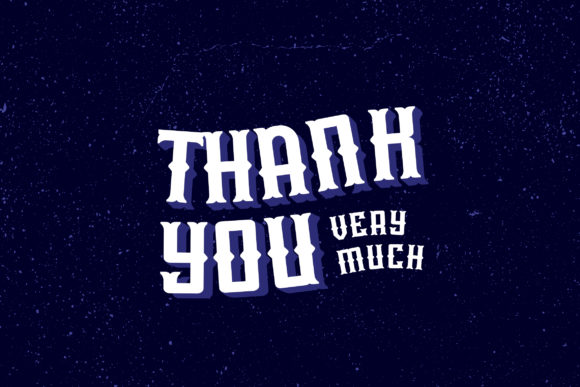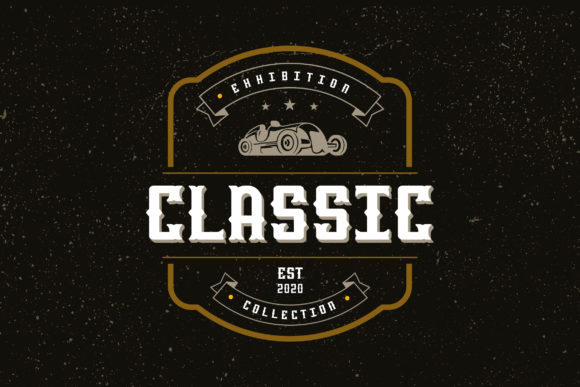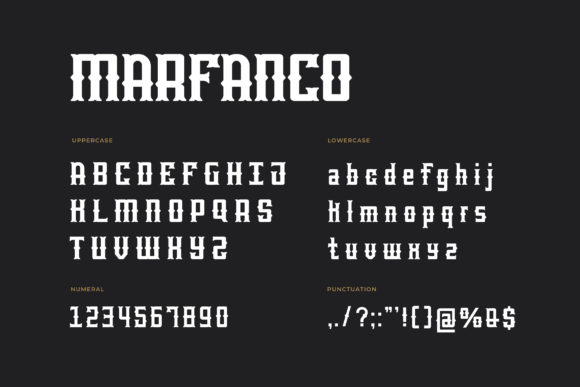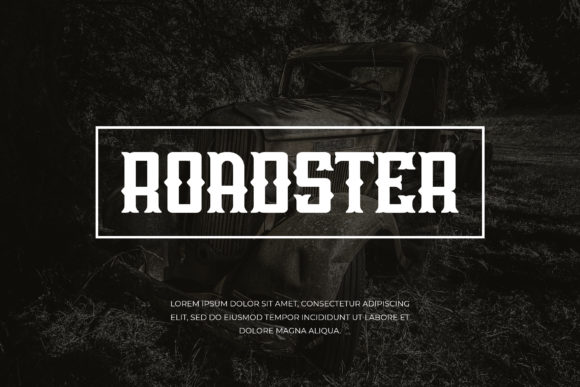
Introduction to Marfanco Font
You’ve spent hours poring over design boards, searching for the perfect font to bring your creative project to life. And then, it hits you – the perfect combination of style and character that makes your design truly pop. For many designers, this moment is all about finding the right font that speaks to their vision. Enter the Marfanco Font, a bold, vintage styled display font that exudes confidence and dynamism.
Imagine a font that can instantly add a touch of nostalgia to your designs, transporting your audience back to a bygone era. The Marfanco Font is that game-changer, offering a high-quality design resource that’s perfect for anyone looking to add some vintage flair to their creative project. With its transparent background and bold lines, this font is a must-have for designers who want to make a statement.
Key Features of Marfanco Font
- High-quality, unique font design suitable for creative projects, with a transparent background that allows for seamless integration with various design elements.
- Includes a range of glyphs, making it a versatile font for various creative projects, from logos to typography-heavy designs.
- Designed to be highly legible, making it an ideal choice for body text and headlines in creative projects.
Honest Review: Marfanco Font
As a designer, I’m always on the lookout for high-quality design resources that can elevate my creative projects. Recently, I stumbled upon the Marfanco Font, and I must say it’s been a game-changer. The first thing that caught my attention was the transparent background, which makes it perfect for overlaying on images or other design elements.
- ✨ High-quality typography: The font is well-designed, with crisp lines and a clean aesthetic.
- ✨ Versatile: It’s suitable for a wide range of creative projects, from branding to web design.
- ⚠️ Limited font styles: While the font is well-designed, it’s limited to a single style, which might not be suitable for projects that require multiple font variations.
- ⚠️ Not ideal for complex text: The font might not be the best choice for complex text, such as paragraphs or lengthy blocks of text.
Overall, I’m impressed with the Marfanco Font. It’s a great resource for designers who need a high-quality, versatile font for their creative projects. While it has its limitations, it’s a solid choice for designers who want a clean and modern look.
The Marfanco Font is commonly used in creative projects, such as logos, business cards, and brochures. It’s also a great choice for social media graphics and presentations.